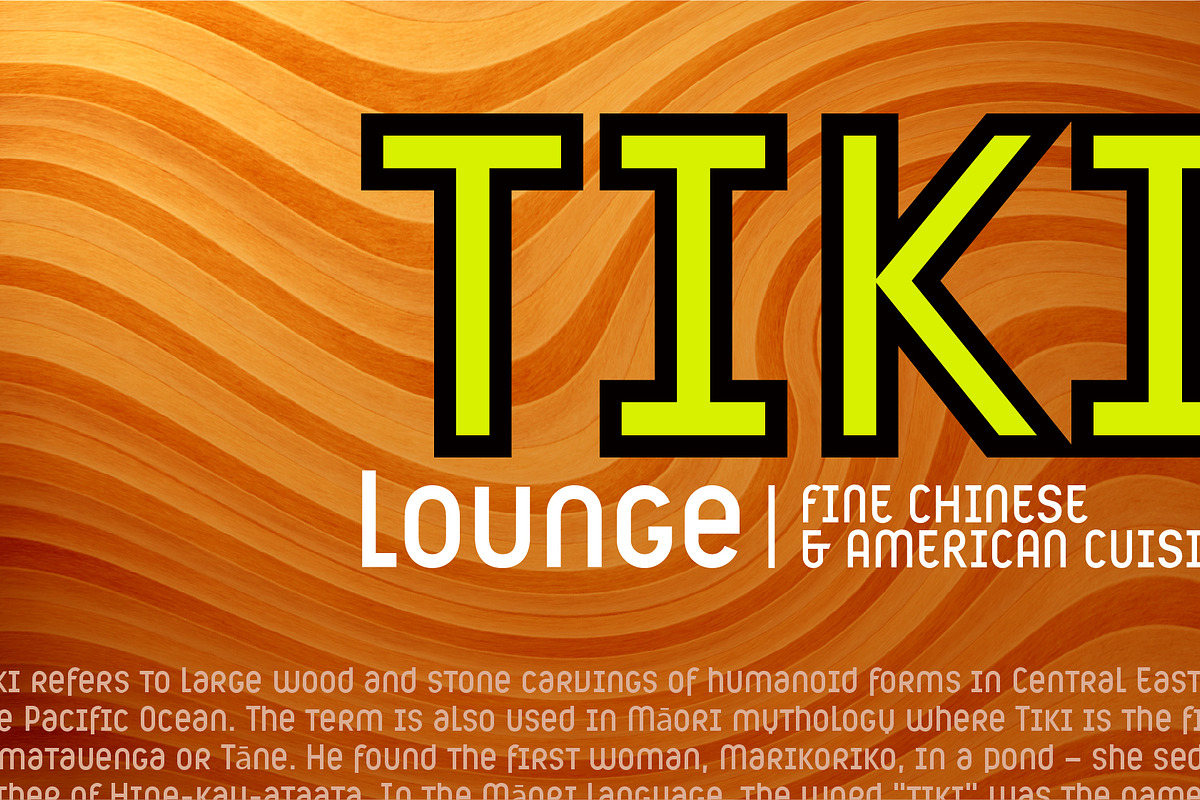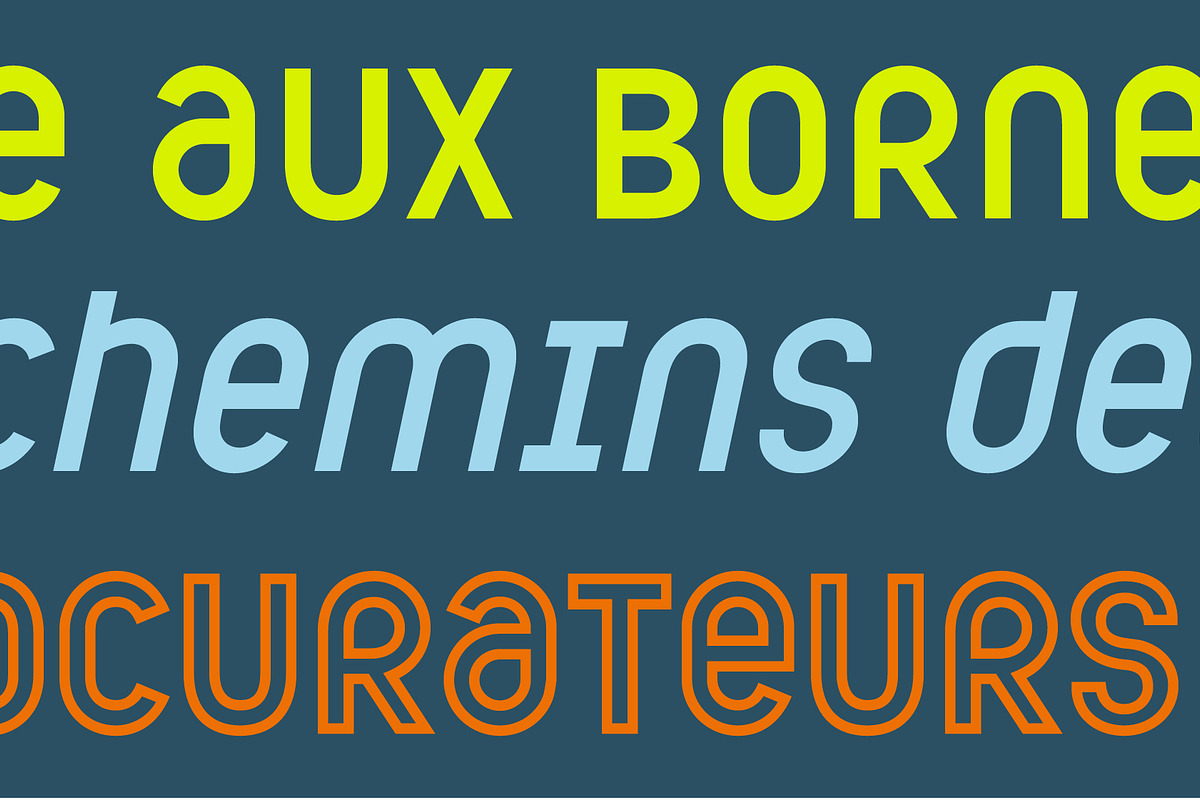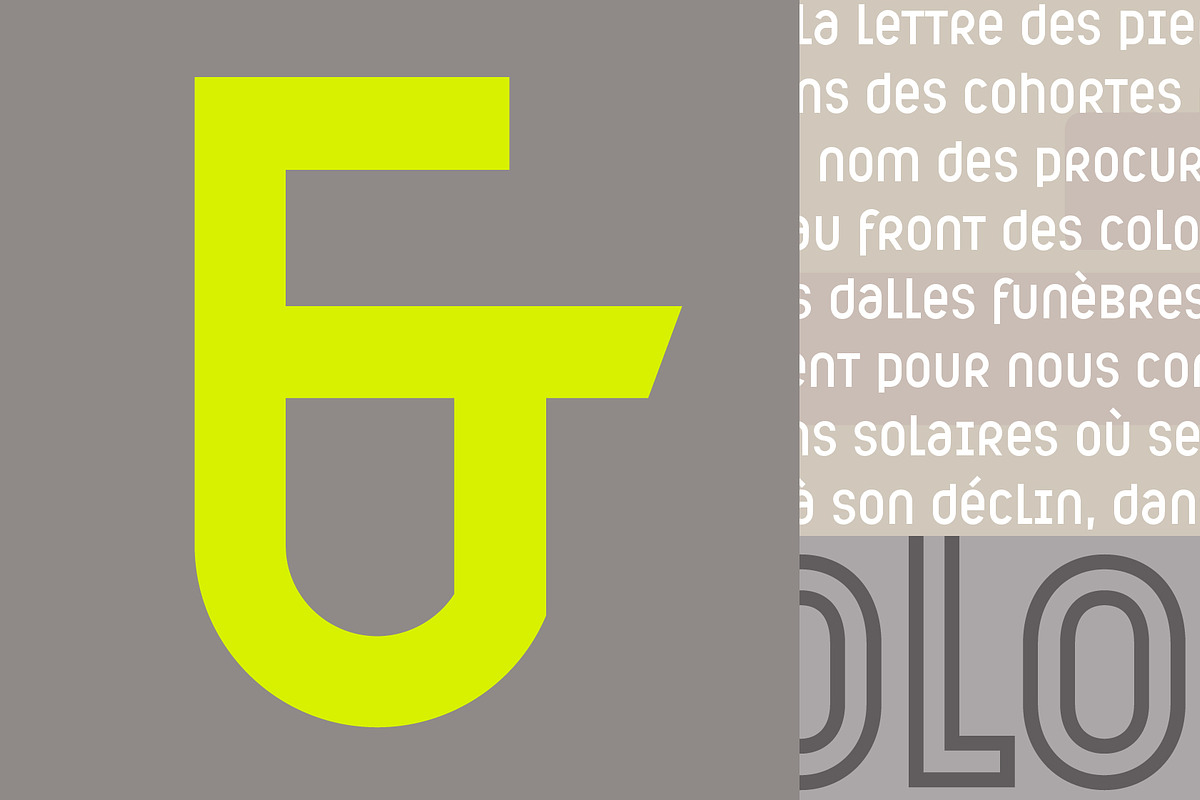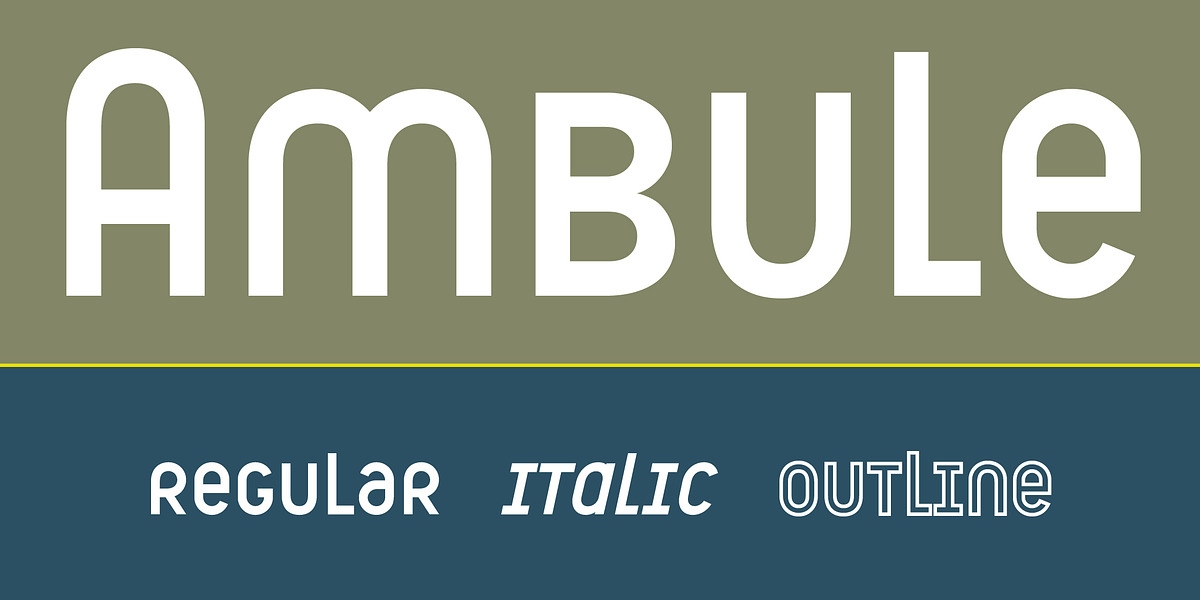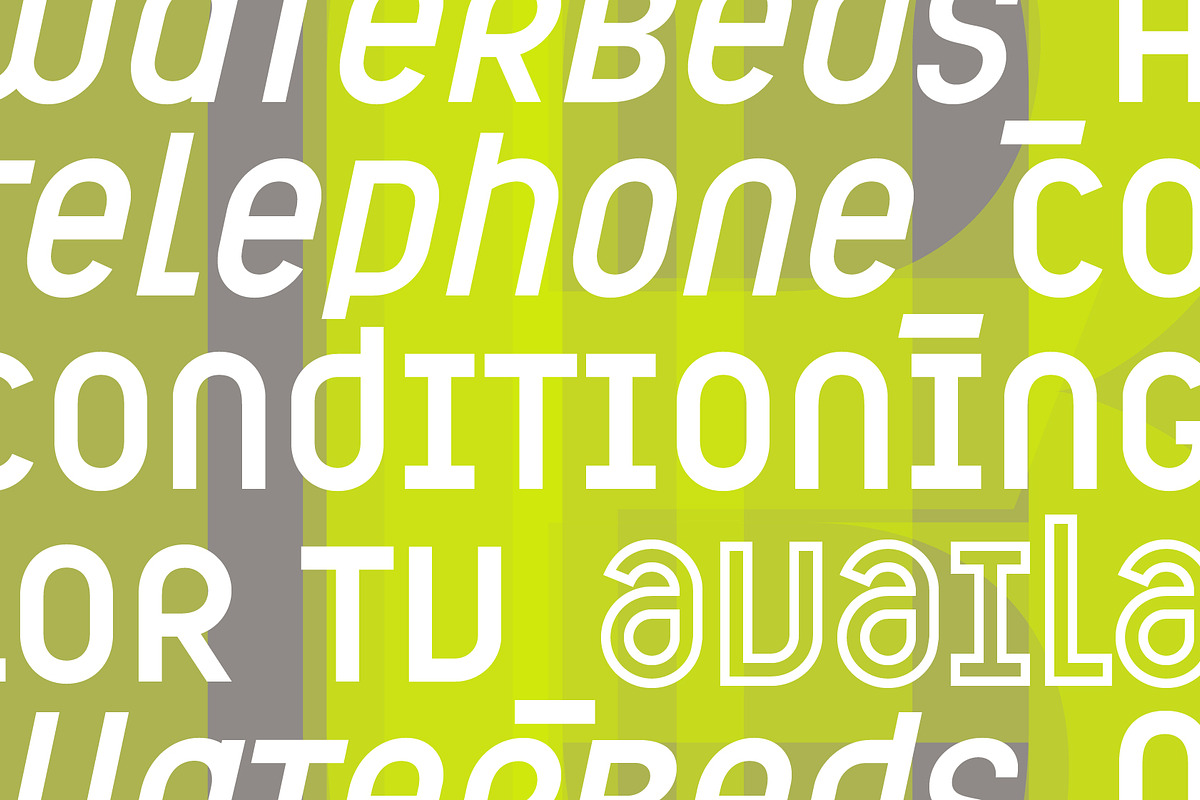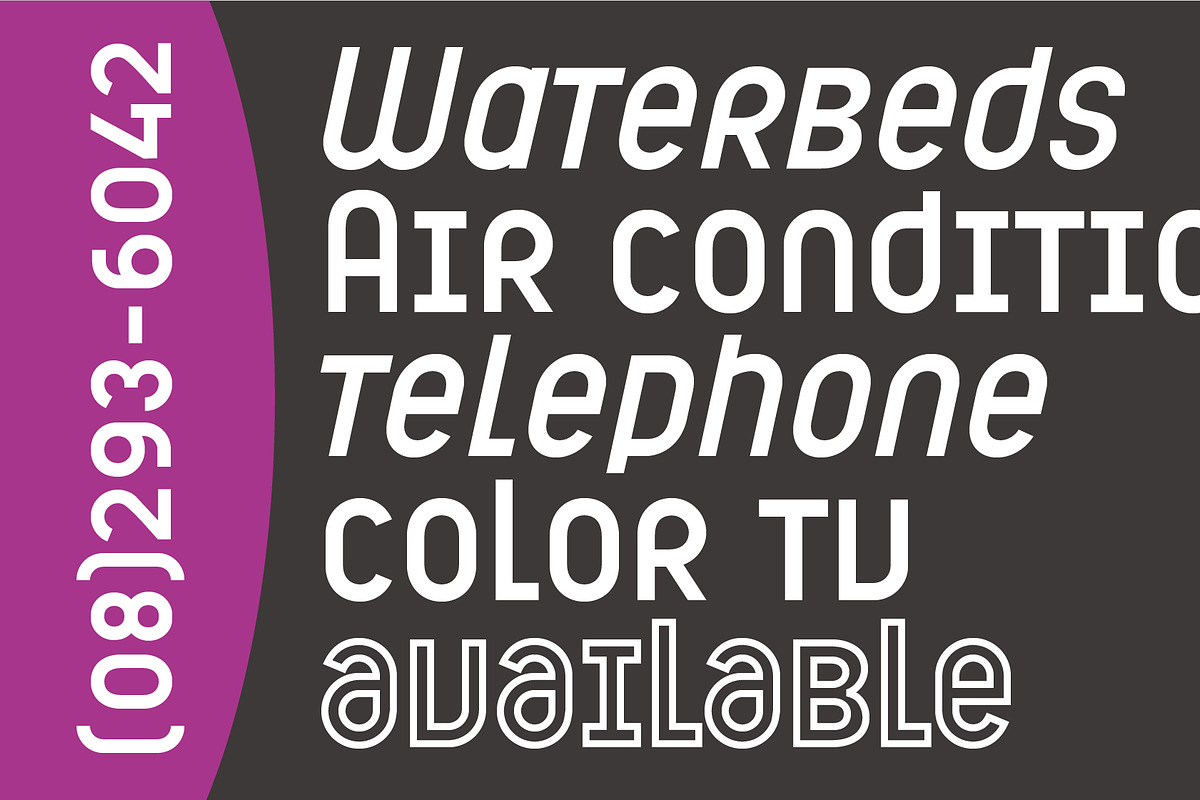
Ambule
Ambule is a geometric sans serif font that blends elements of Huxley Vertical and Peignot. Its clean, monolinear design with spurless letterforms makes it highly legible and versatile for both text and display purposes.